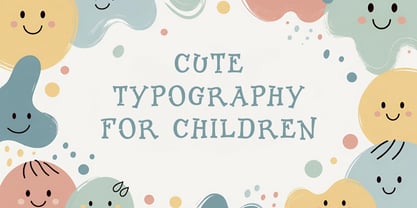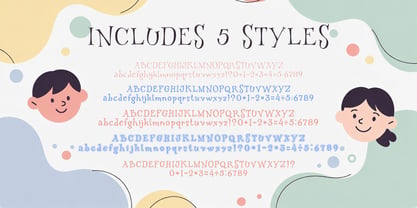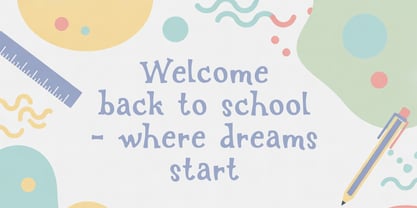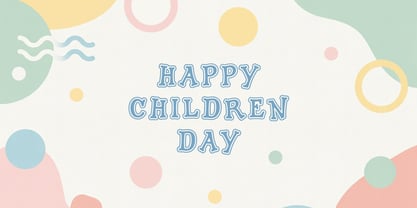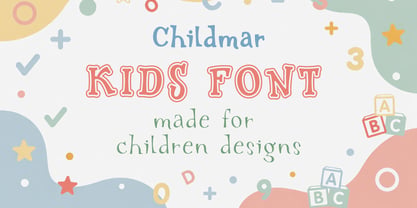
Childmar
by Marooshka Type
The Childmar Font Family was designed by Maryna Fomina and published by Marooshka Type. Childmar contains 5 styles and family package options. More about this family
Childmar - Playful child vibe font. Introducing Childmar, a fun and lively font inspired by the energy of childhood! Perfect for online games, posters, for books, educational materials, fast food menus, magazines, YouTube covers, and social media, packaging, and branding, and for your creative projects! This cheerful font adds a joyful touch to any design. Childmar comes in five styles: Childmar-Regular Childmar-Bold Round Childmar-Bold Line Childmar-Bold Cut
Designers: Maryna Fomina
Foundry: Marooshka Type